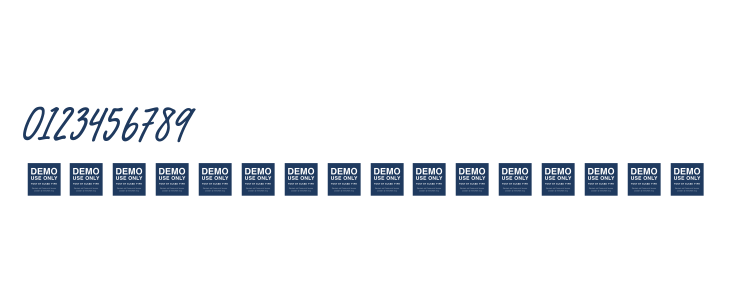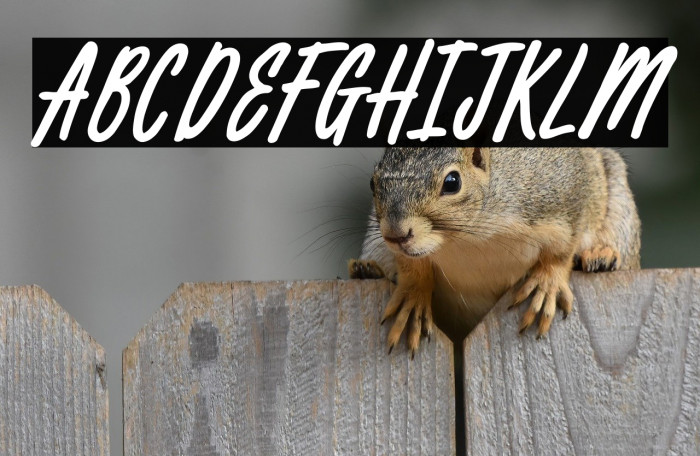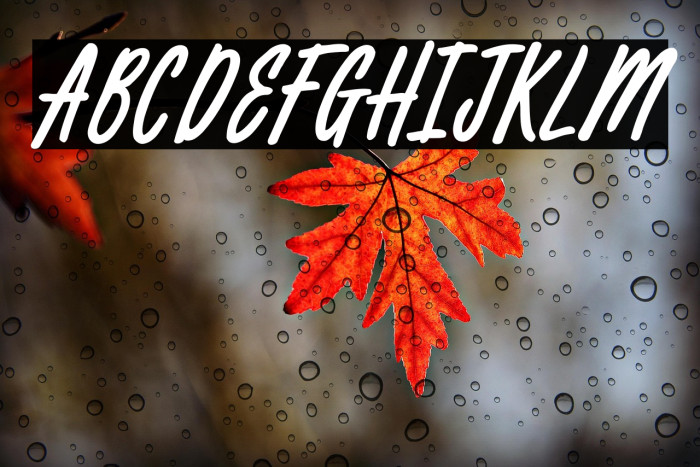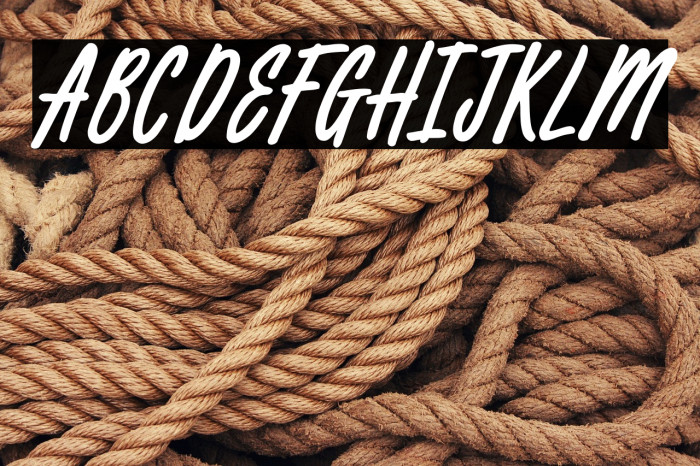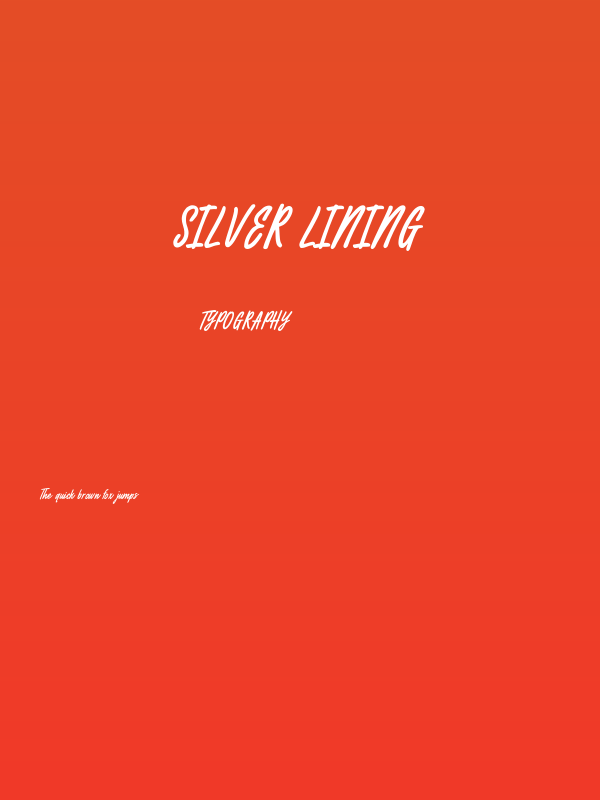
Silver Lining Font
Silver Lining Description
This font exudes a dynamic and energetic feel with its bold, cursive style. The letters are elegantly slanted, giving a sense of motion and fluidity. Each character is crafted with smooth, flowing lines that create a harmonious and cohesive look. The uppercase letters are slightly taller, maintaining a consistent thickness throughout, while the lowercase letters complement them with a slightly more relaxed form. The numerals are clear and distinct, matching the overall style of the alphabet. This font's design is both modern and timeless, making it versatile for various applications.
| Use Case | Logos, Invitations, Creative projects |
| Proposed Projects | Ideal for branding, logos, invitations, and creative projects that require a personal touch. |